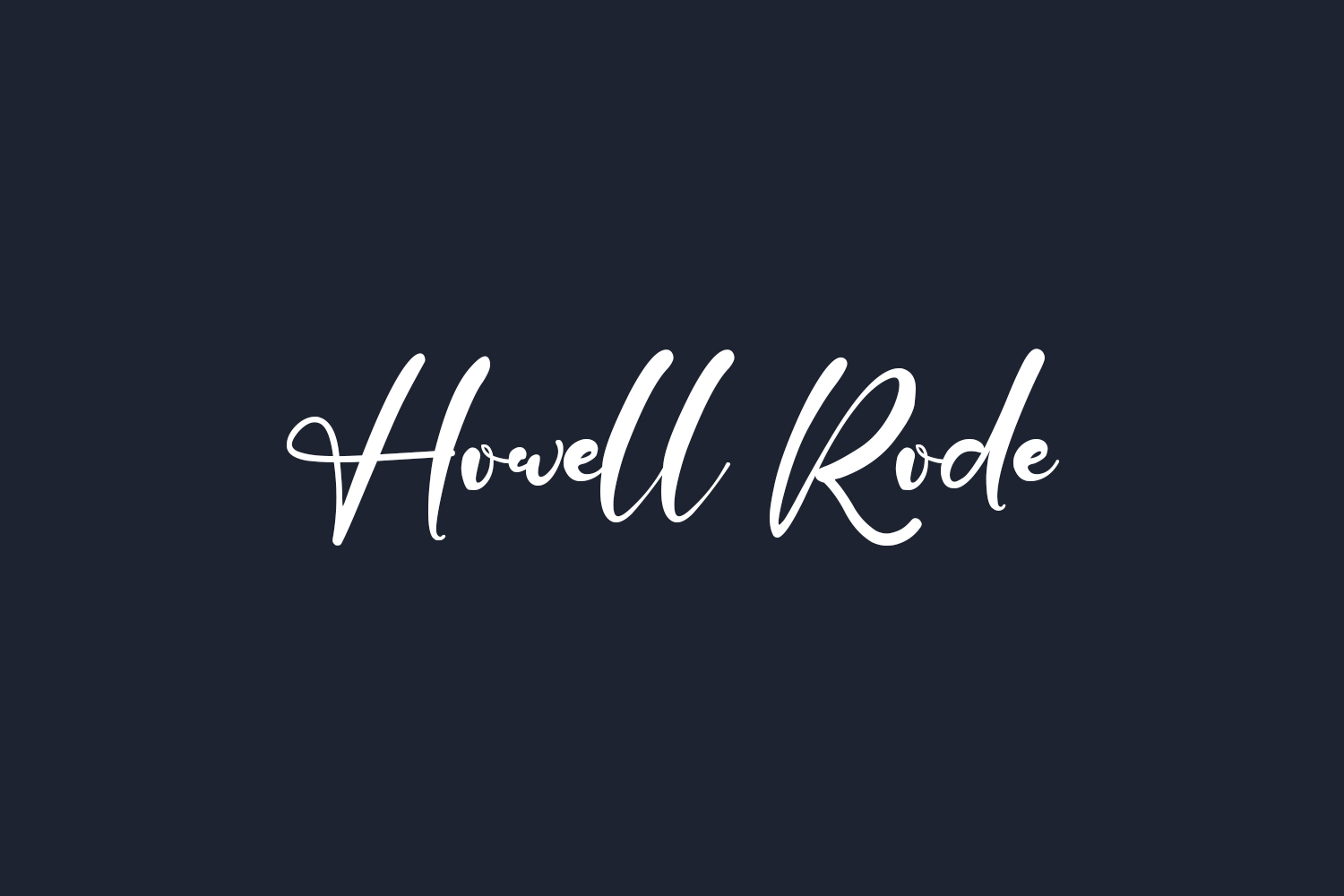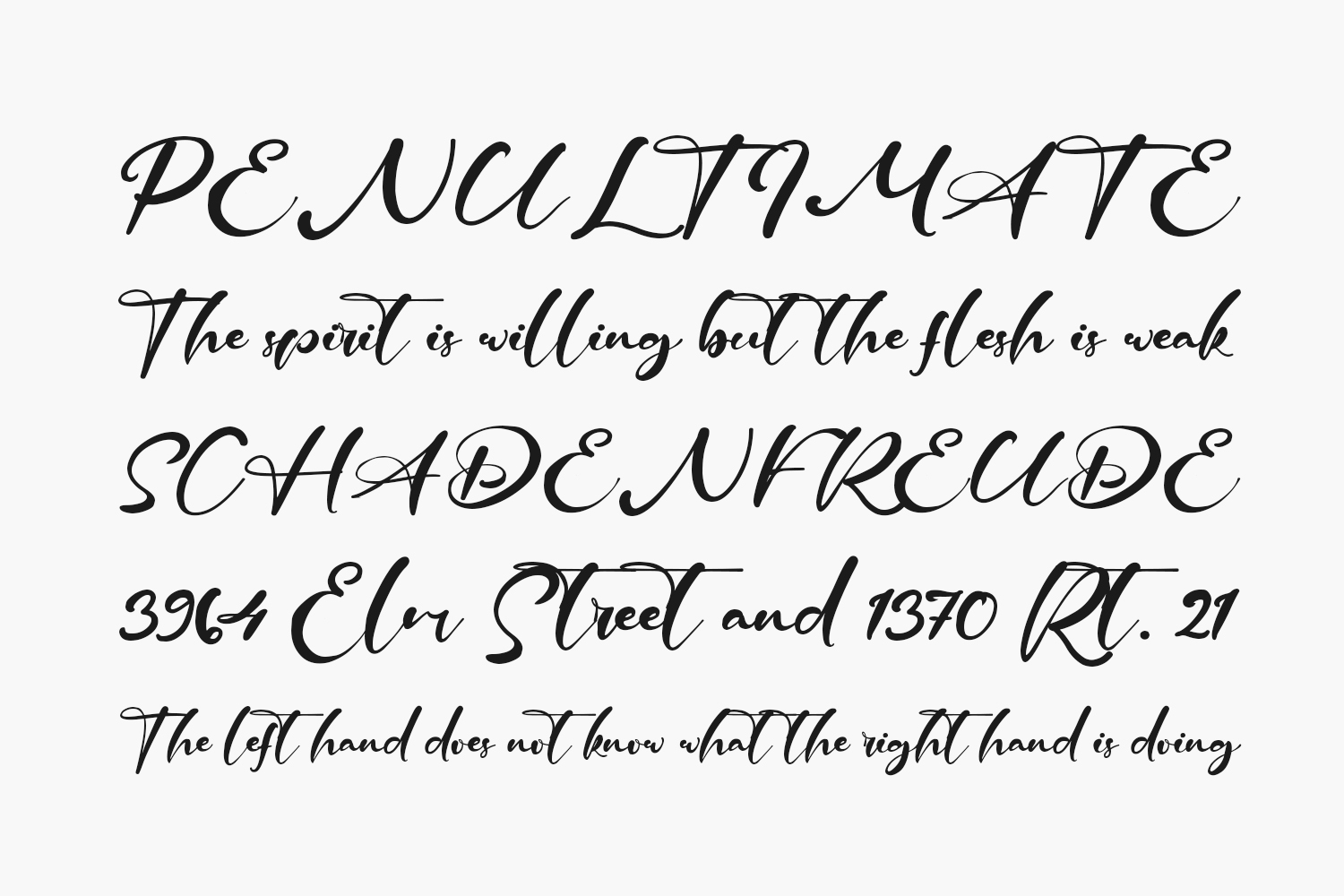
Howell Rode Free Font is a modern and playful script font. It’s great for crafters and designers. Howell Rode Free Font was designed by Kong Font and is free for personal use only. Please purchase the full version for commercial use.